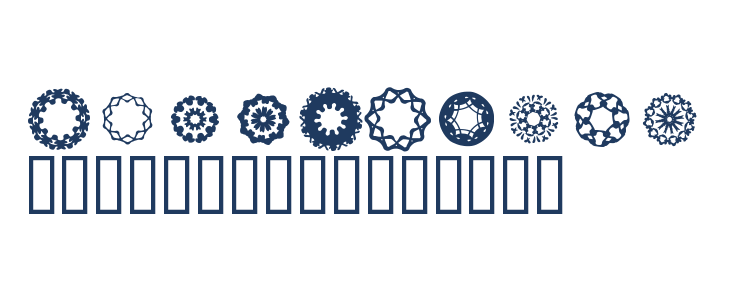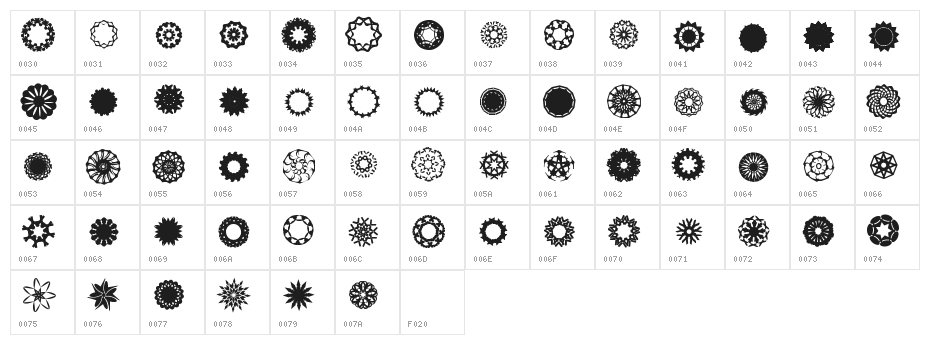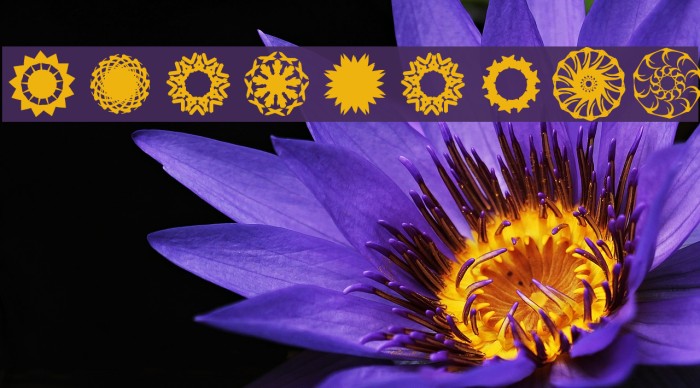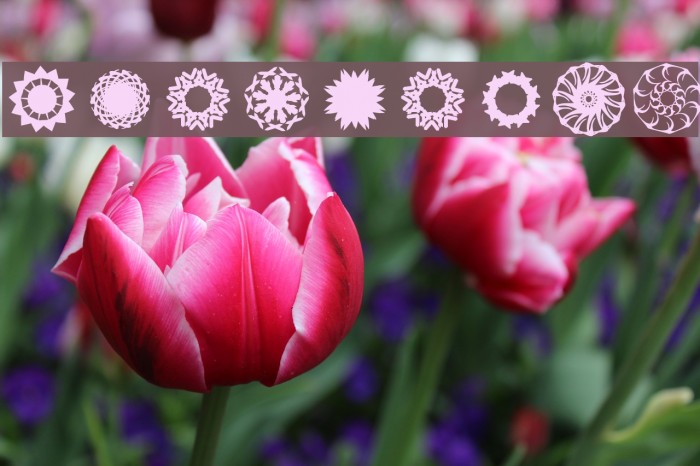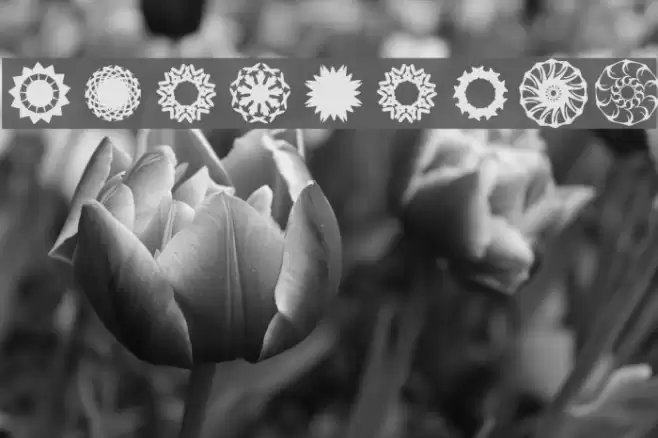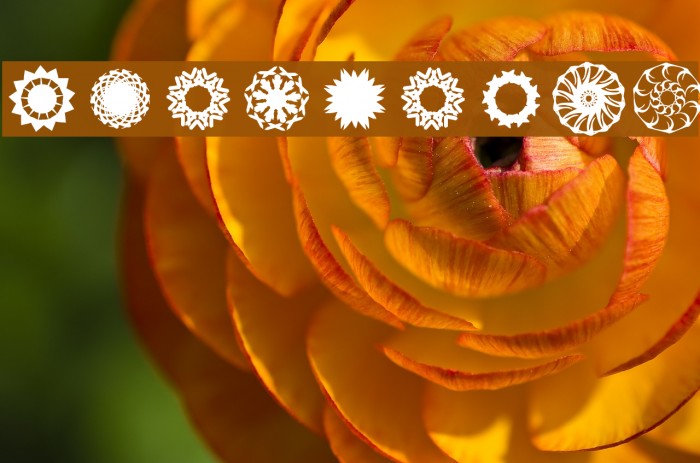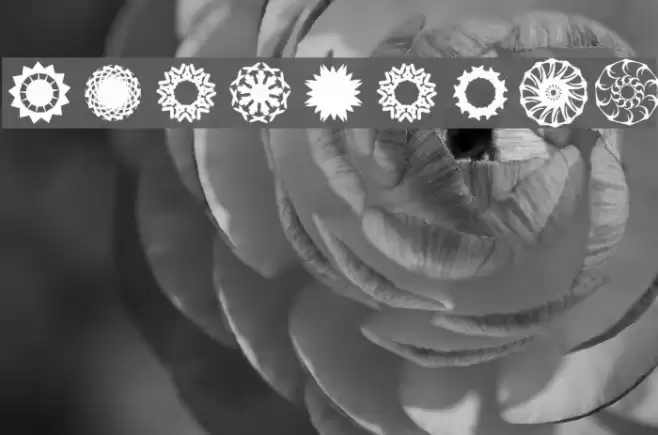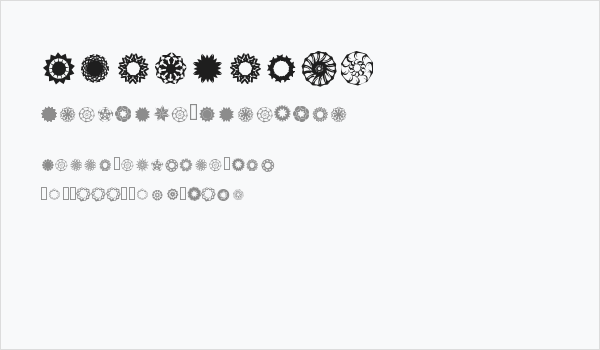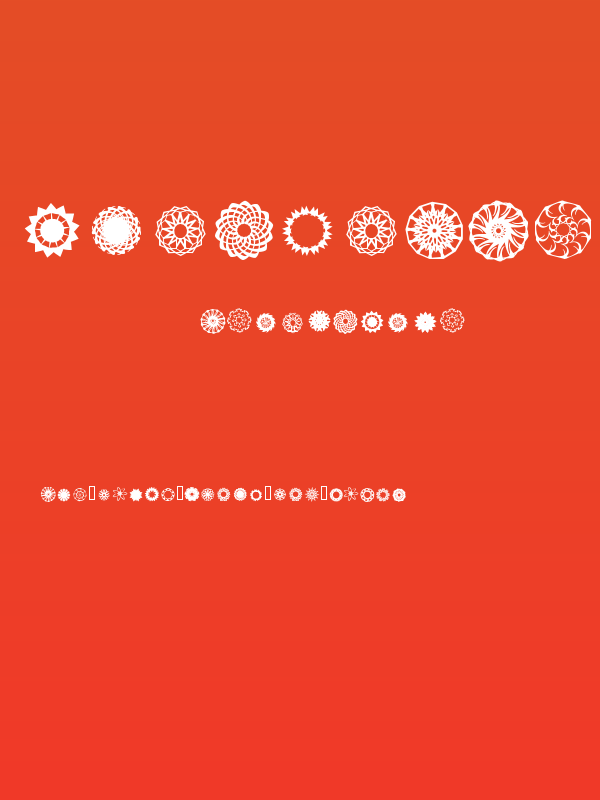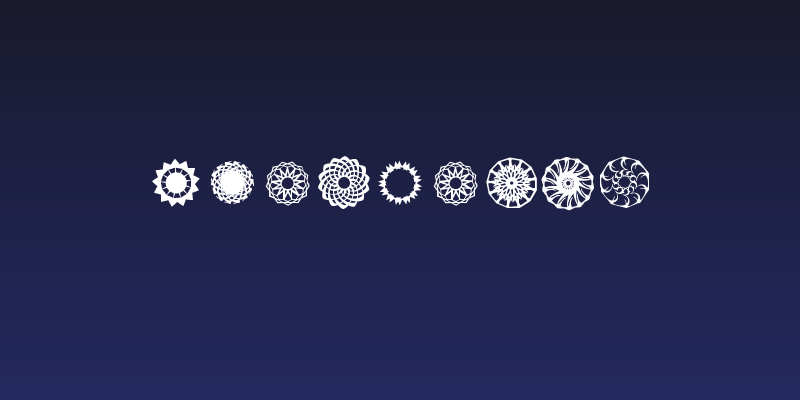
ASorionTW Font
ASorionTW Description
A decorative dingbat font featuring a wide variety of intricate, circular, mandala-like symbols and geometric floral shapes. Each glyph is unique, with detailed patterns and high visual complexity, suitable for ornamental and design purposes rather than standard text.
| Use Case | Ornamentation, icons, embellishments, graphic design elements |
| Proposed Projects | Decorative borders, invitations, certificates, scrapbooking, digital art, pattern creation, and embellishments. |